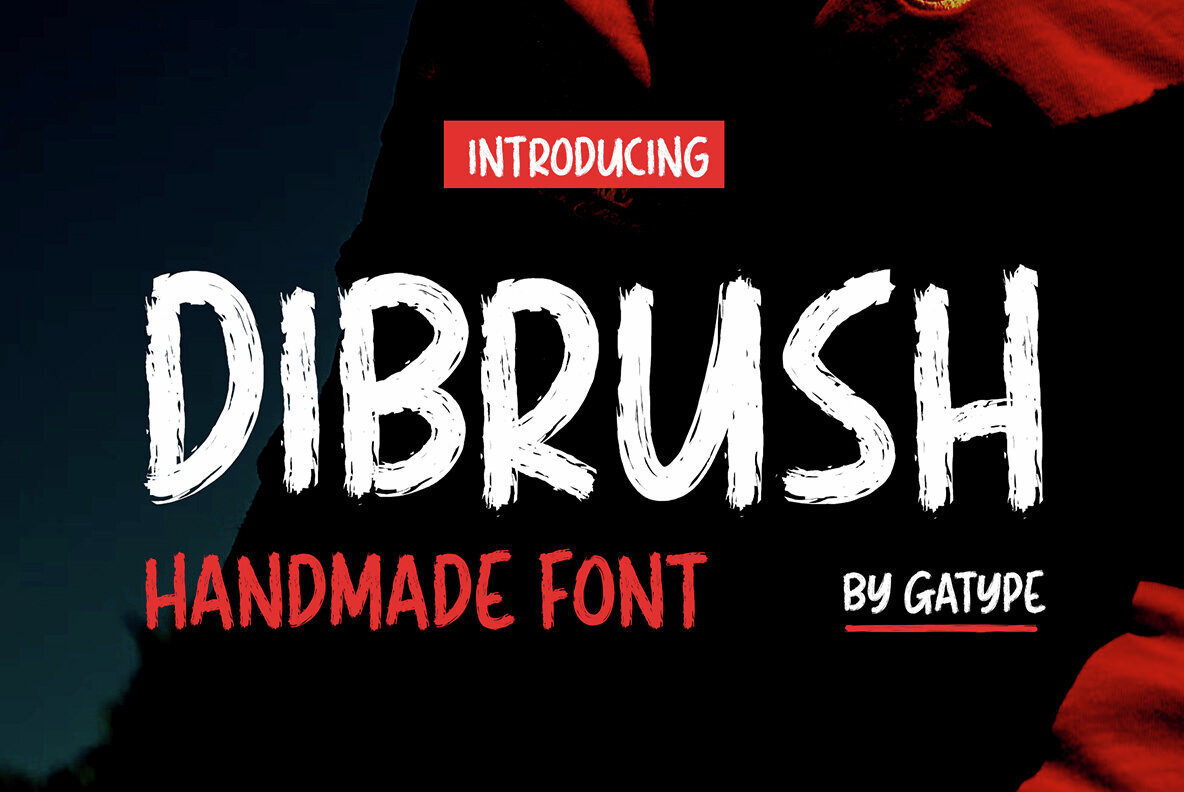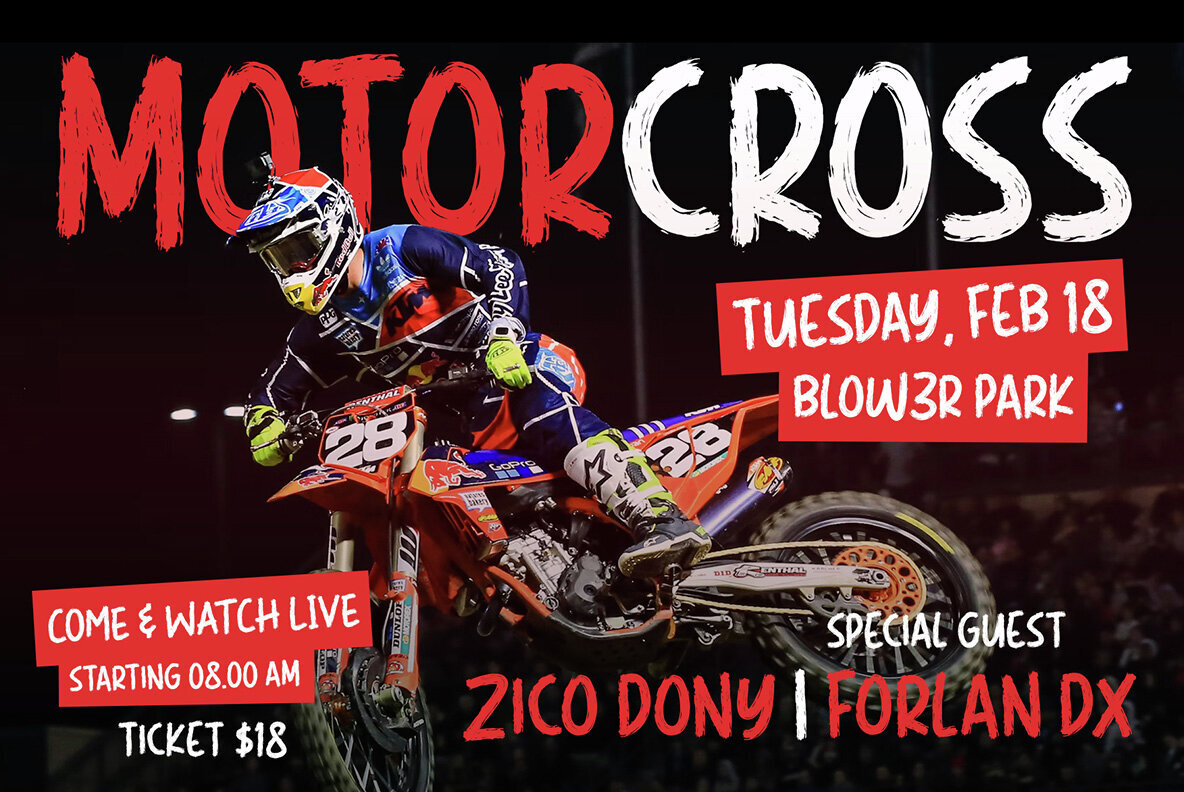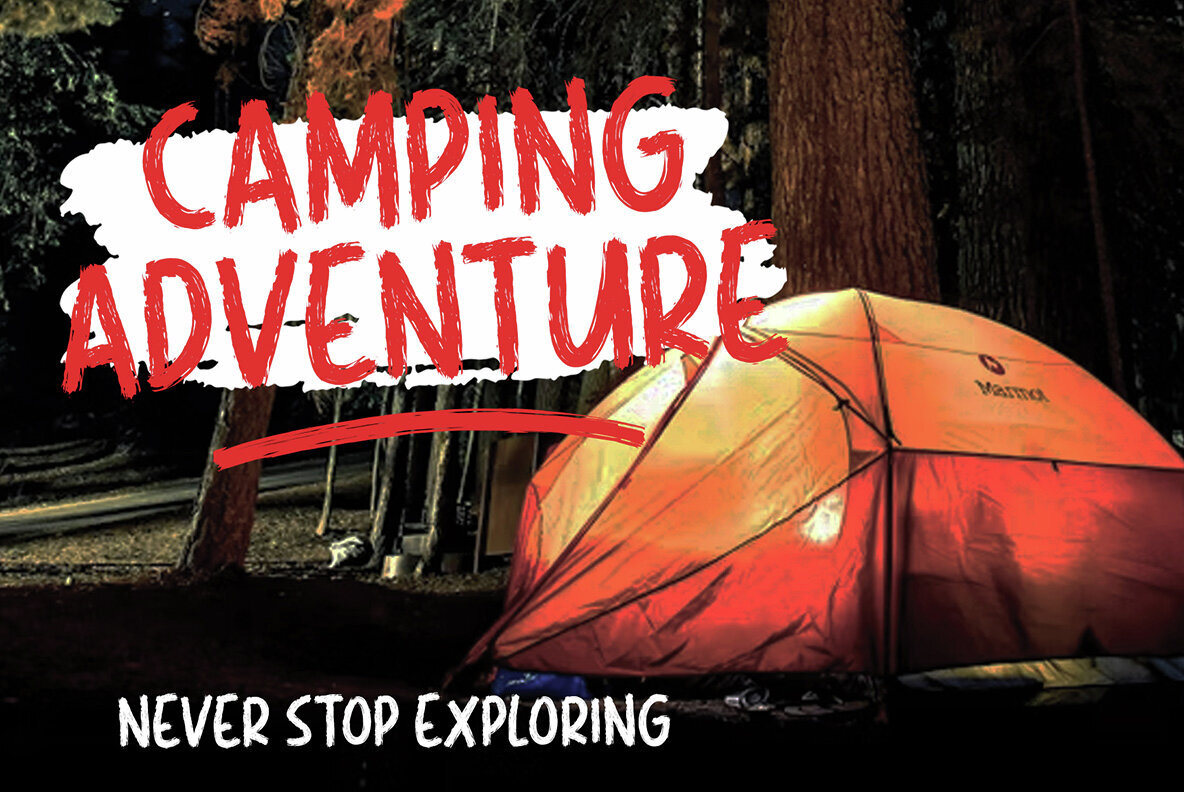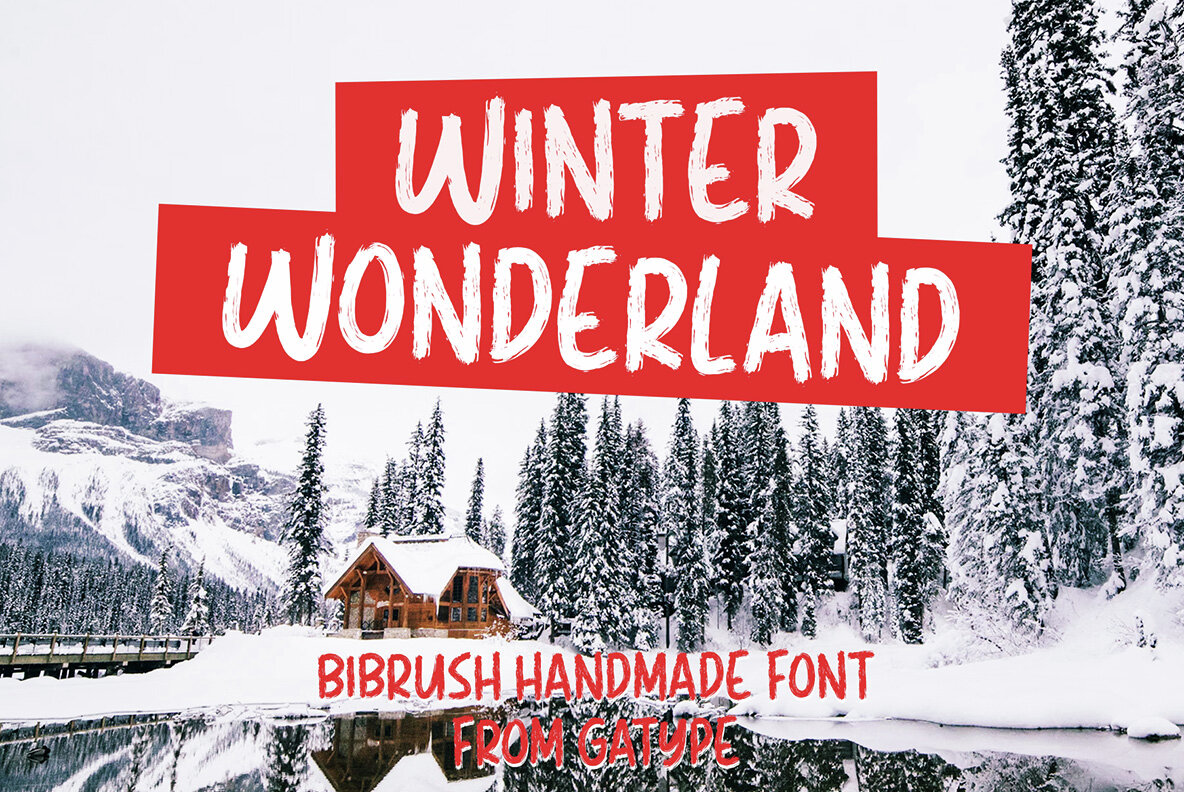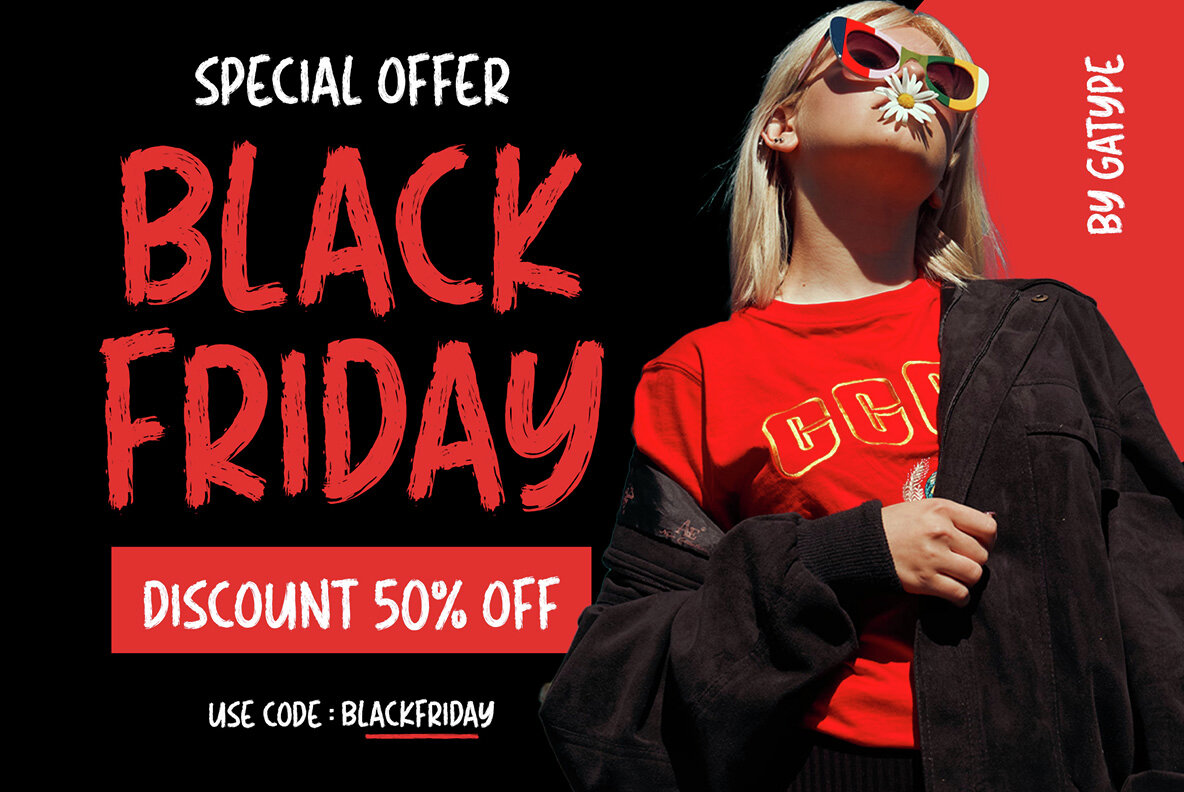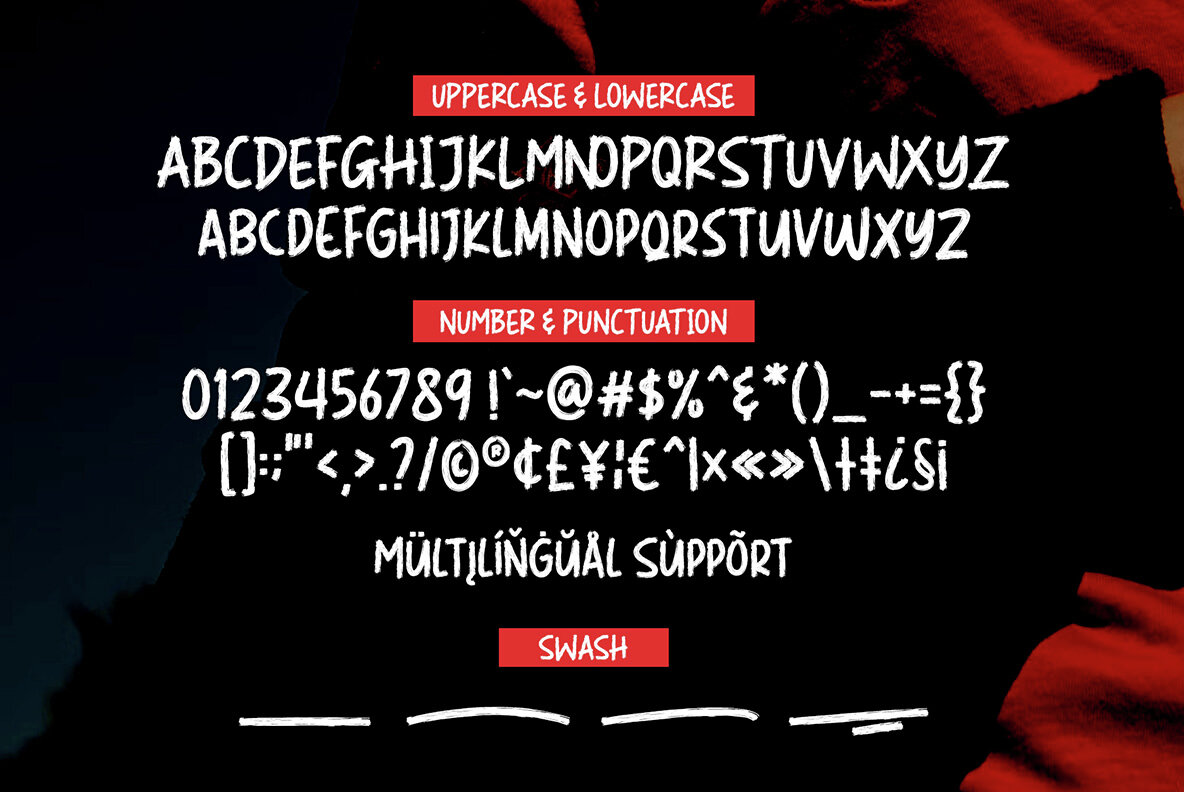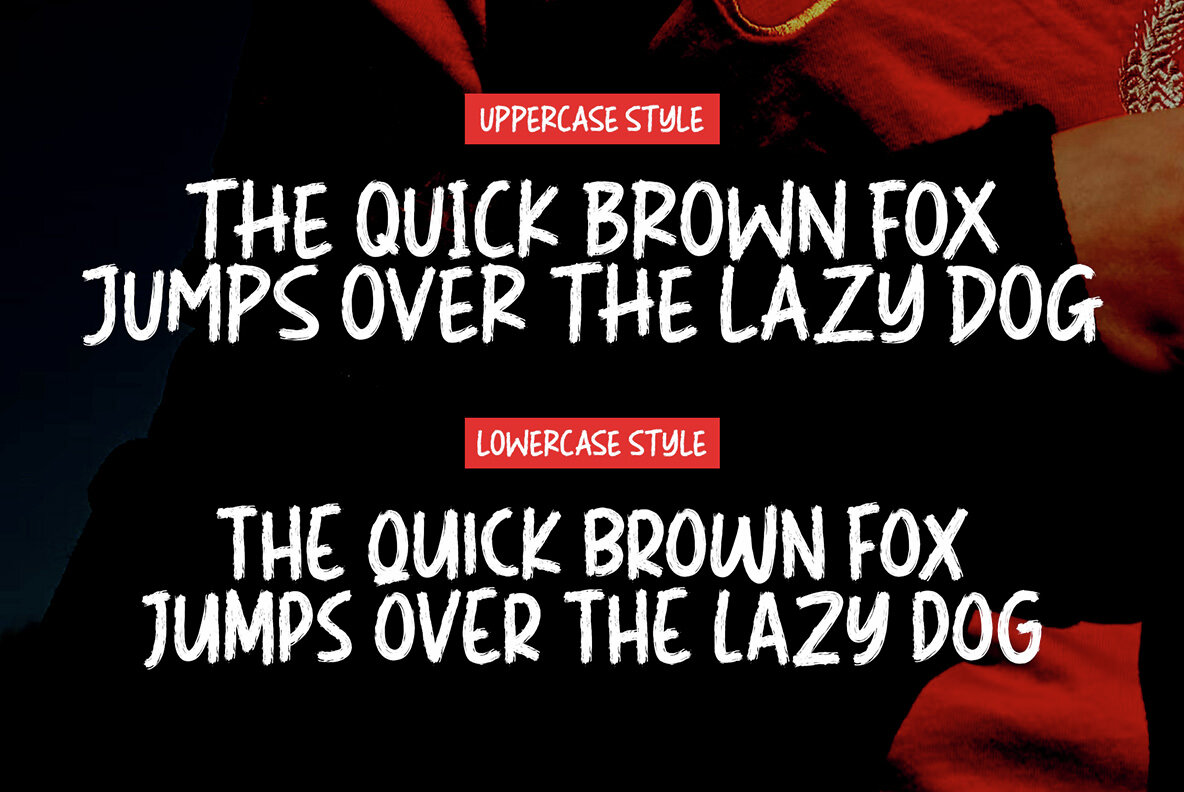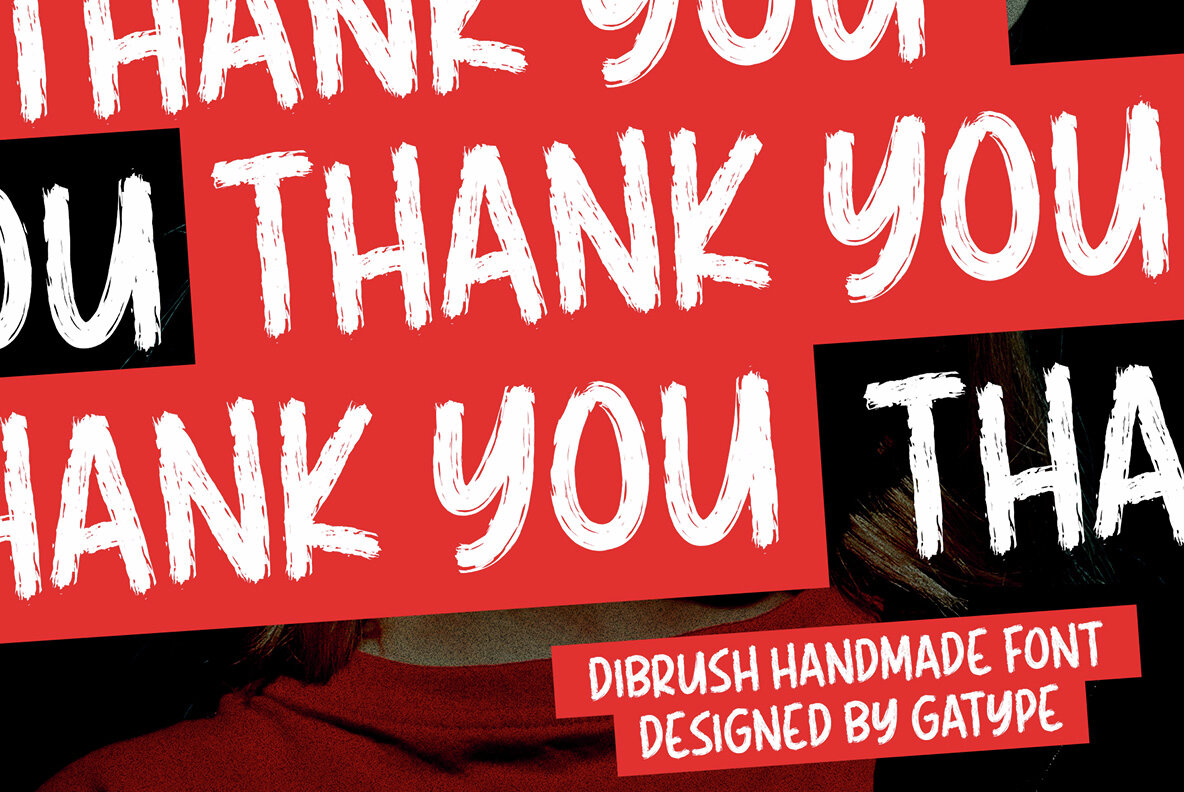
Dibrush Font
Dibrush
Dibrush is a handwritten display font designed for versatility and elegance. Defined by its single-line stroke and consistent thickness, it delivers a modern and relaxed aesthetic, ideal for a variety of design projects. Whether you're working on branding, logos, invitations, or packaging, Dibrush brings a refined touch to your creative endeavors.
Perfect for enhancing your designs, Dibrush also excels in social media visuals, offering a unique and stylish look that captures attention. Its seamless integration into different contexts ensures that your projects stand out with an understated elegance and contemporary flair.